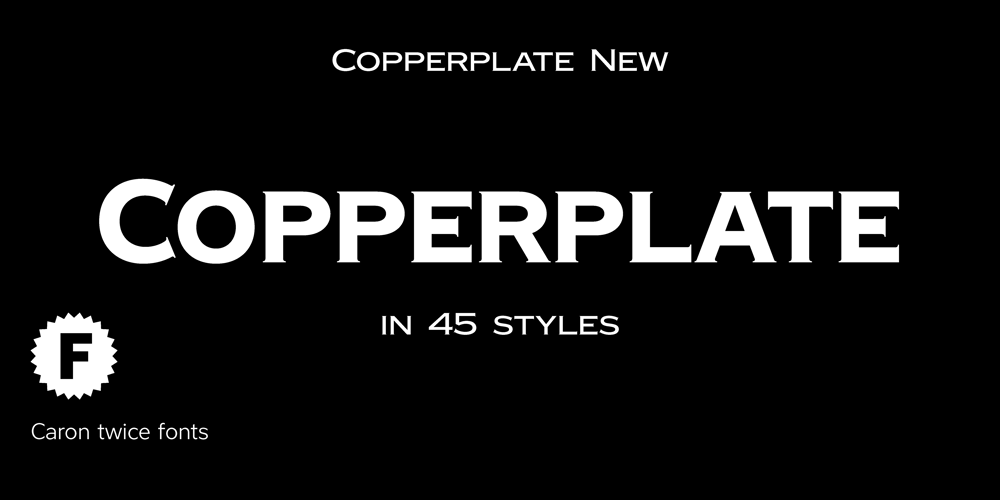
Copperplate New Font Family was designed by Frederic W. Goudy, Martin Činčár and published by Caron twice. Copperplate New contains 49 styles and family package options. Imagine America in the 1930s. A gangster flick with Al Capone, a crime novel featuring Philip Marlowe. Our hero in a fedora sits in a classy bar, orders a double bourbon, lights a cigar and eyes the evening paper. He turns the pages, reading about a bank heist over on Third Avenue, a scandal involving a baseball player, a small ad for a general practitioner and a large spread about a famous law firm. What do the bottle of booze and the majestic facade of the bank have in common? The elegant baseball uniform and trustworthy attorneys? – Copperplate Gothic – When Frederick William Goudy created his legendary typeface in 1901, it went on to literally become the symbol of early 20th century America. Tiny serifs, characteristically broad letterforms, and particularly bold titles decorated calling cards at 6-point size, enormous bronze-cast logos, newspaper headlines, restaurant menus and more. This was the golden age of Copperplate, lasting up until the arrival of die neue Typografie and monospaced grotesques in the 1960s. Then the typeface almost completely disappeared. It made a partial comeback with the advent of the personal computer; digitizations of varying quality appeared, and one version even became a standard font in Adobe programs. This may have played a role in Copperplate later being used in DIY projects and amateur designs, which harmed its reputation. Copperplate New has been created to revive the faded glory of the original design. Formally, the new typeface expands the existing weight and proportional extremes. The slight serifs are reduced even further, making the typeface sans-like at smaller point sizes and improving readability. In contrast, at large point sizes it retains all of its original character. Decorative inline & shadow styles have been added and both have been created in all five proportions, making it easy to adapt the typesetting to the format you need. Despite these changes and innovations, Copperplate New remains true to Goudy’s original design and represents a snazzy way to evoke a golden era in American culture. Specimen:http://carontwice.com/files/specimen_Copperplate_New.pdf